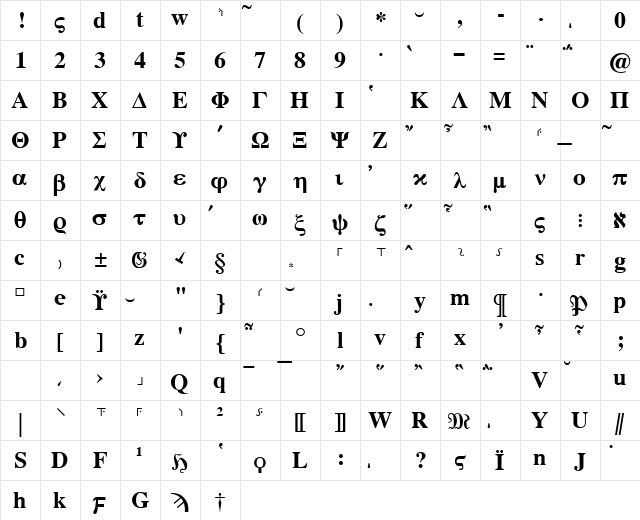
Hellenica Bold
Design Context for Hellenica Typeface
Hellenica is a composed and adaptable typeface that performs quietly and consistently across a wide range of design contexts. Its bold stroke weight gives it real presence on the page.